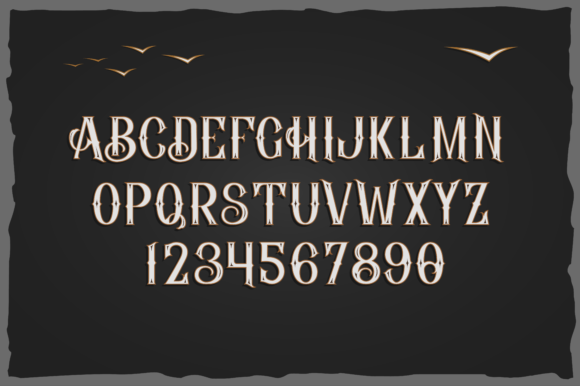
Unleash the Power of Dark Castle Font: Elevate Your Designs with a Bold, Imposing, and Vintage Flair
Are you tired of using the same old fonts in your designs? Do you want to add a touch of elegance and sophistication to your posters, titles, and headlines? Look no further than the Dark Castle Font, a bold, imposing, and vintage-styled display font that’s sure to take your creations to the next level.
What is Dark Castle Font?
Dark Castle Font is a unique and eye-catching font that’s perfect for designers and crafters who want to add a touch of drama and flair to their work. With its bold and imposing design, this font is sure to grab attention and make your creations stand out from the crowd.
As a vintage-styled display font, Dark Castle Font is inspired by the classic fonts of the past, but with a modern twist. Its intricate details and ornate design make it perfect for use in a variety of design projects, from posters and titles to headlines and logos.
Key Features of Dark Castle Font
So, what makes Dark Castle Font so special? Here are just a few of its key features:
- Bold and Imposing Design: Dark Castle Font is a bold and imposing font that’s sure to grab attention. Its large size and intricate details make it perfect for use in headlines, titles, and posters.
- Vintage Styled: With its classic design and ornate details, Dark Castle Font has a distinctly vintage feel that’s perfect for designers who want to add a touch of elegance and sophistication to their work.
- Highly Versatile: Dark Castle Font is a highly versatile font that can be used in a variety of design projects, from posters and titles to headlines and logos.
How to Use Dark Castle Font
| Font Name | Dark Castle Font |
| Author | Fractal font factory |
In conclusion, Dark Castle Font is a bold, imposing, and vintage-styled display font that’s perfect for designers and crafters who want to add a touch of elegance and sophistication to their work. With its intricate details and ornate design, this font is sure to grab attention and make your creations stand out from the crowd.